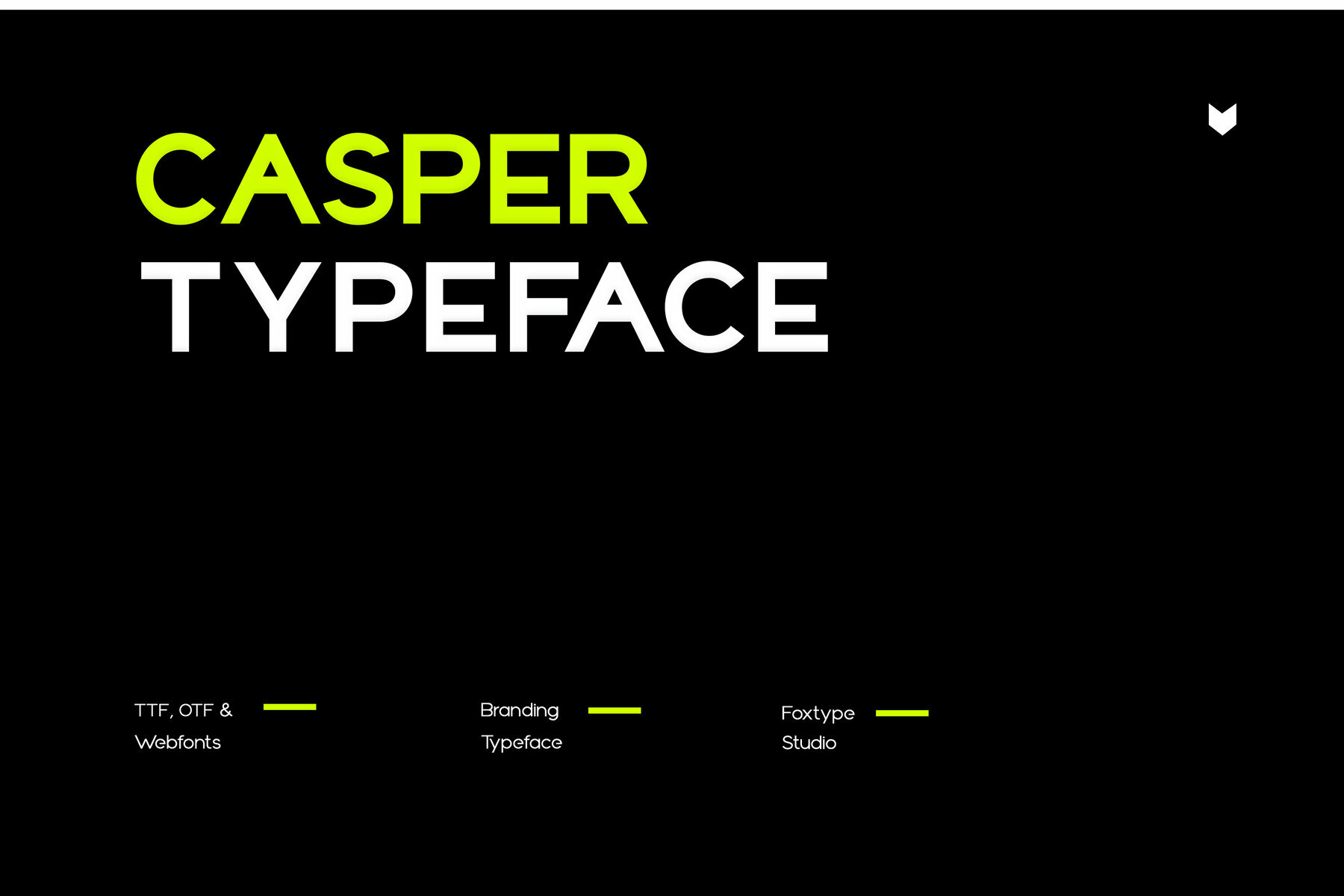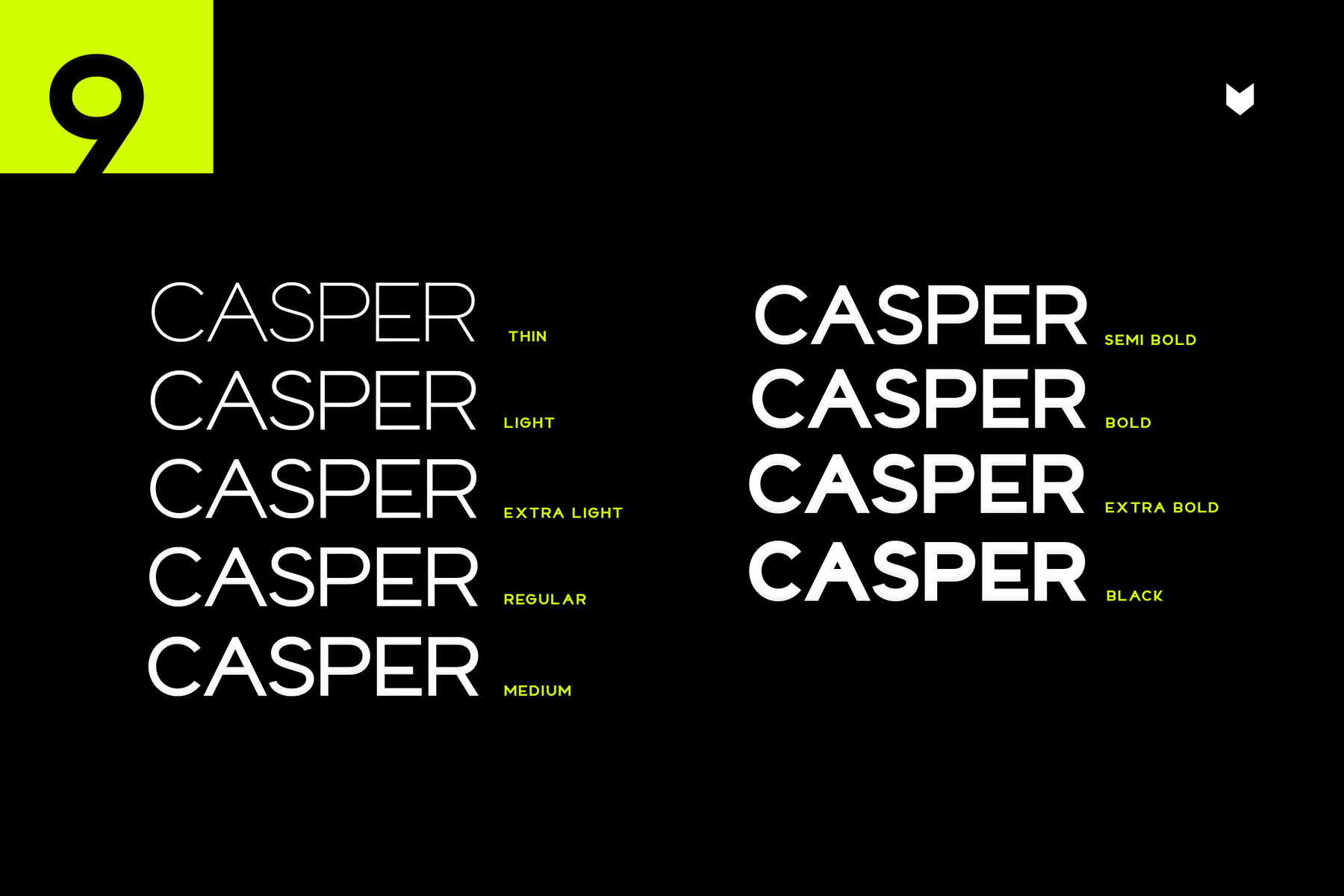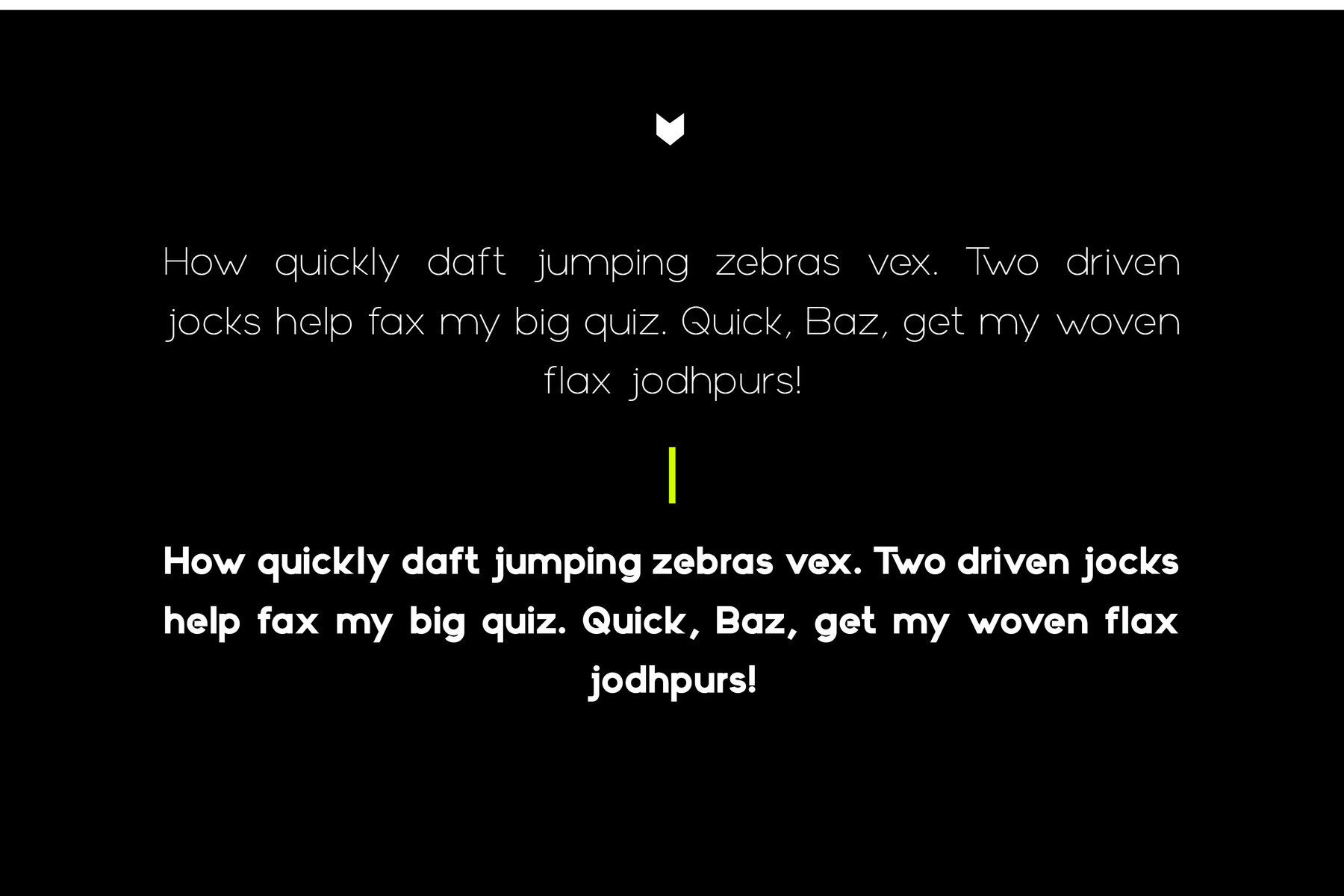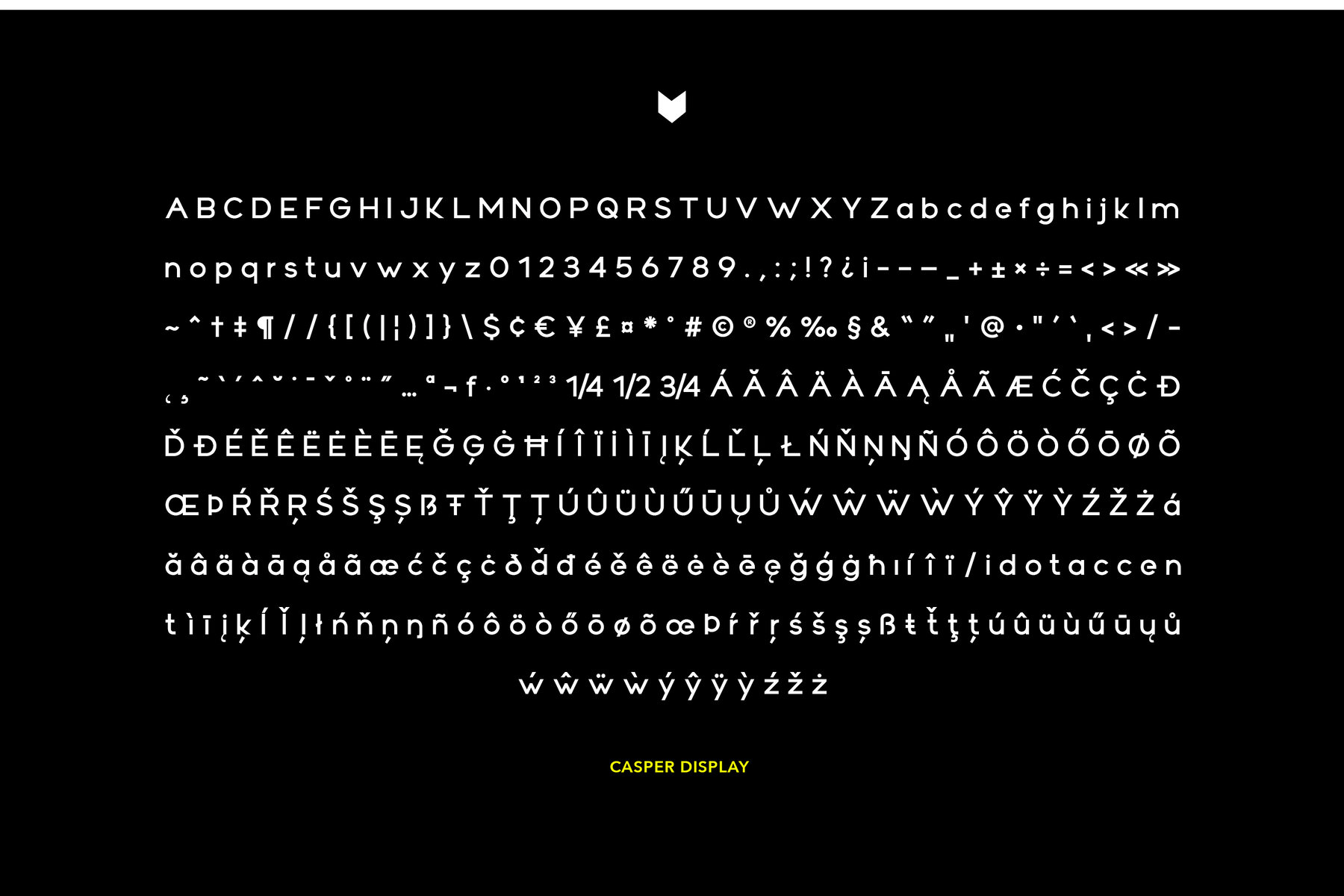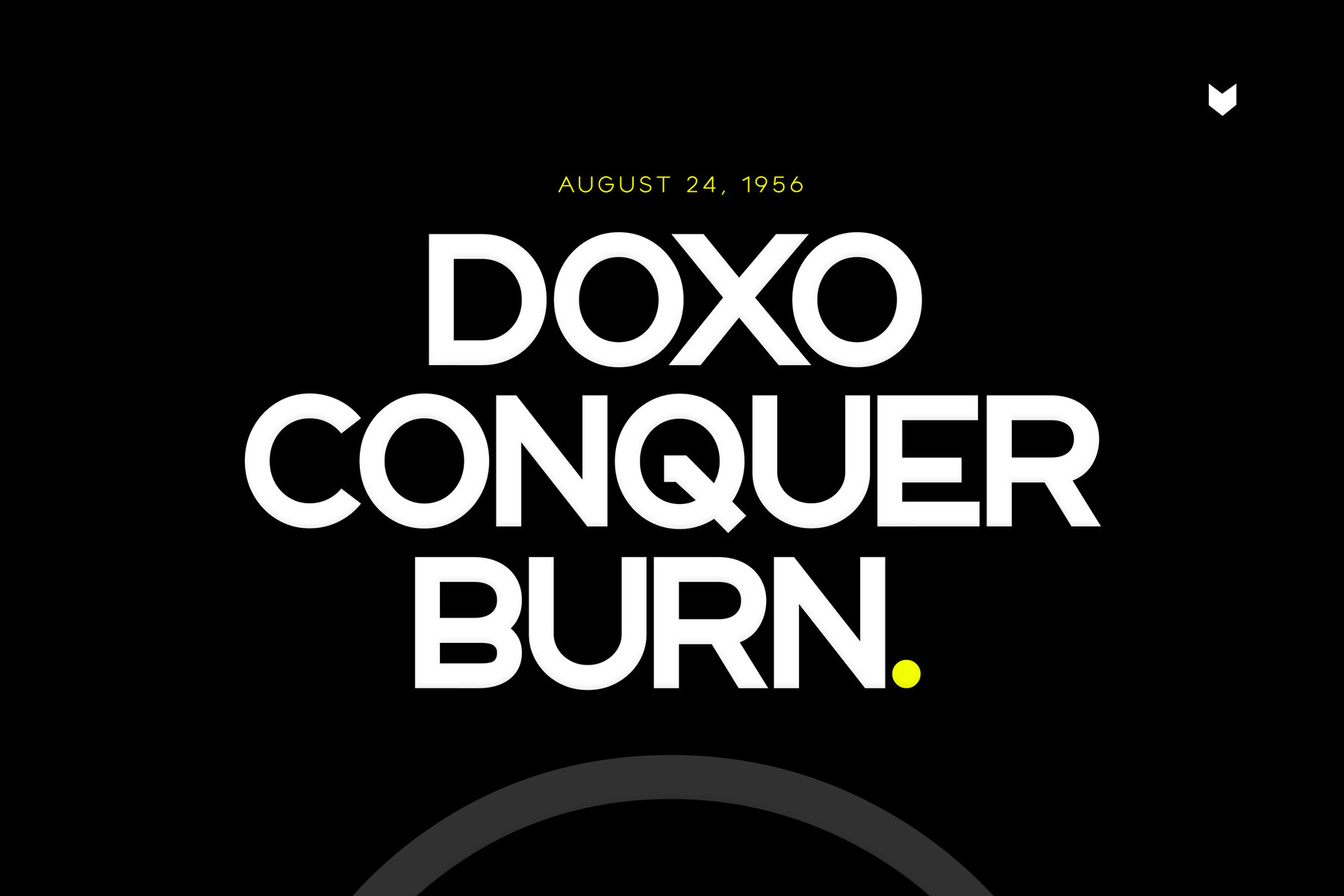
Casper Display Font
Casper is a unique modern elegant typeface with web-fonts. It's a very versatile font that works great in large and small sizes. Casper would perfect for branding, logos, headlines, captions. Or simply as a stylish text overlay to any background image. Strong capitals and a smooth, open lowercase are effective in a variety of applications. It's shown a clean, minimalist, warmth, quirky, yet still purposed to be versatile and easy to read.